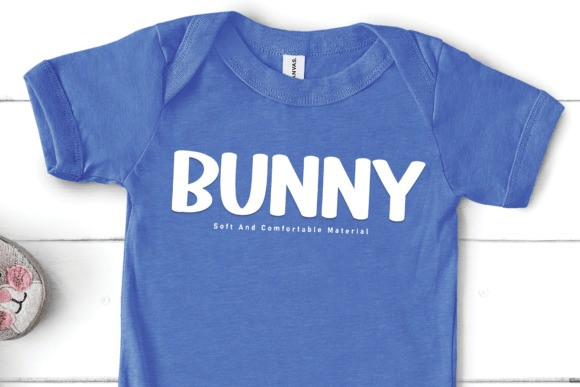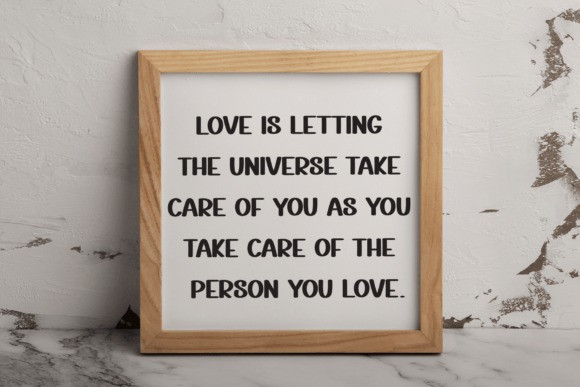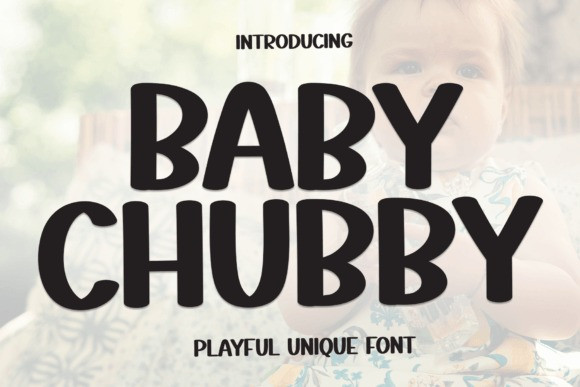
Baby Chubby Display Font
Baby Chubby Display Font is a fun and versatile sans-serif font. Whether you’re using it for crafting, digital designing, presentations, or greeting card making, it’s perfect!